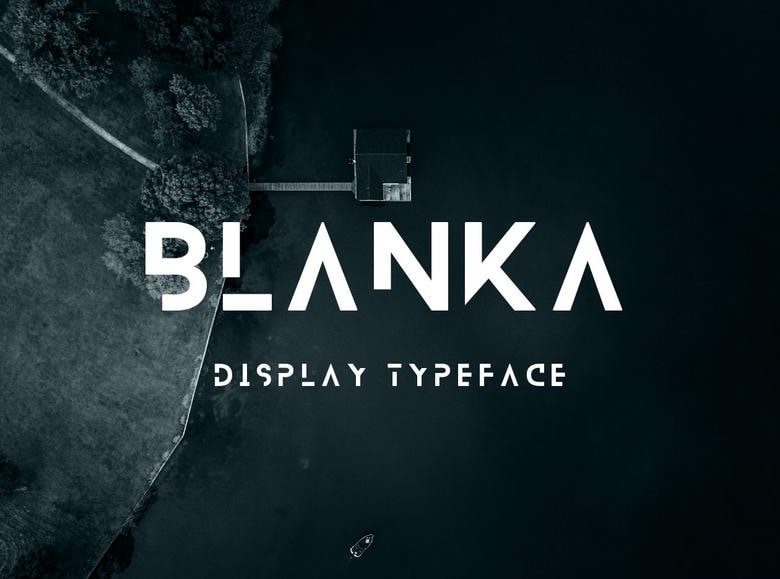
BLANKA Font
BLANKA was my inaugural futuristic and minimalist font design as a freelance graphic artist, available as a free download that can be used both commercially and personally in projects of all kinds.
BLANKA Display Font